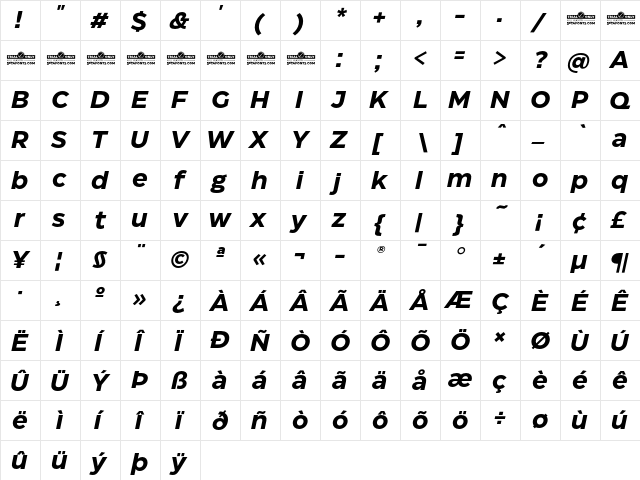
Eastman Trial Bold Italic Font Preview
Eastman Trial Bold Italic
Eastman Trial Bold Italic Font Details
| Foundry | Zetafonts |
| Designer | Francesco Canovaro |
Design Context for Eastman Trial Typeface
Eastman Trial offers clean, dependable letterforms without strong stylistic allegiance, making it a practical choice for designers who need flexibility. Its italic angle brings a sense of urgency and motion to the letterforms. The heavy weight commands attention and anchors typographic hierarchies.